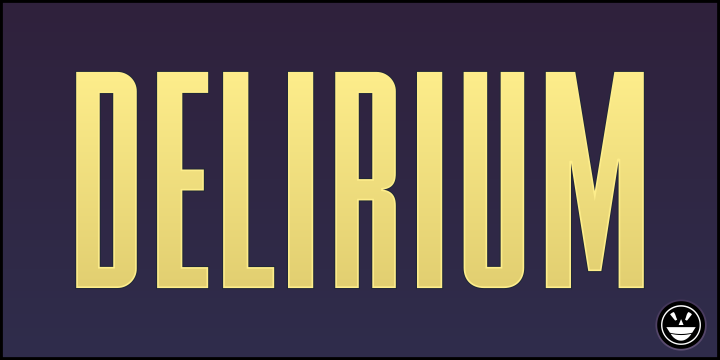
Preview and download Delirium NCV Font. Created by Fontry in Basic Sans serif styles with Free for personal use license.
COMMERCIAL VERSION available for purchase at http://thefontry.com/delirium A $5.00 donation to PayPal using the donate button on this page is requested for limited commercial use of this Non-Commercial Version font. DELIRIUM NCV is a narrow, gothic, gaspipe font family with a vintage look, stance and feel. Neon inline effects have been added to DELIRIUM NEON NCV, enhancing the font's overall versatility. |